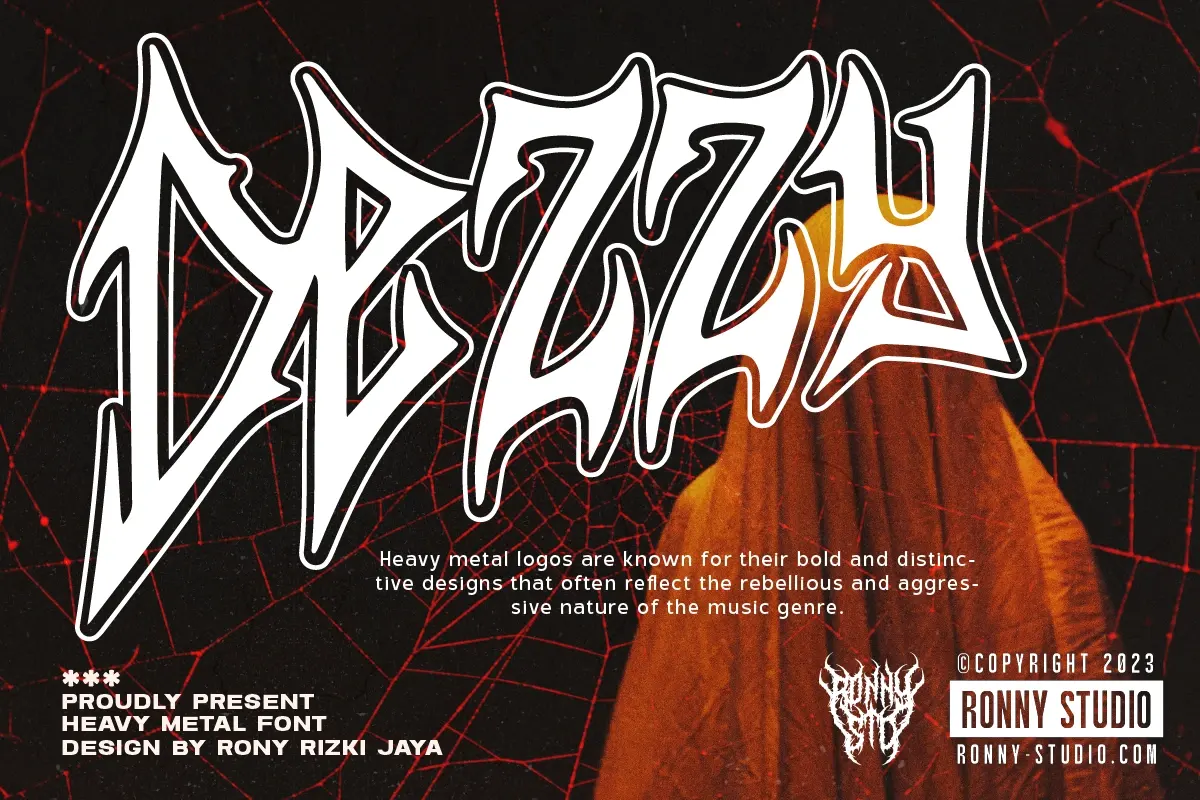
Dezzy Heavy Metal Font Free Download is a fierce and electrifying typeface built for designs that demand attention and intensity. Inspired by the bold aesthetics of heavy metal bands, rock posters, and underground scenes, Dezzy features sharp angles, aggressive lines, and a rebellious attitude that screams power.
This font is perfect for album covers, music merchandise, tattoo designs, gaming graphics, and any creative project that thrives on edge and raw energy. Dezzy’s dramatic style is designed to dominate headlines and make a lasting impression wherever it’s used.
If you’re creating something loud, gritty, and unapologetically bold, Dezzy Heavy Metal Font Free Download is your go-to weapon. Feel free to test it out for personal use, but a commercial license is required for any business or professional work.
Turn up the volume in your design with the hardcore impact of Dezzy!